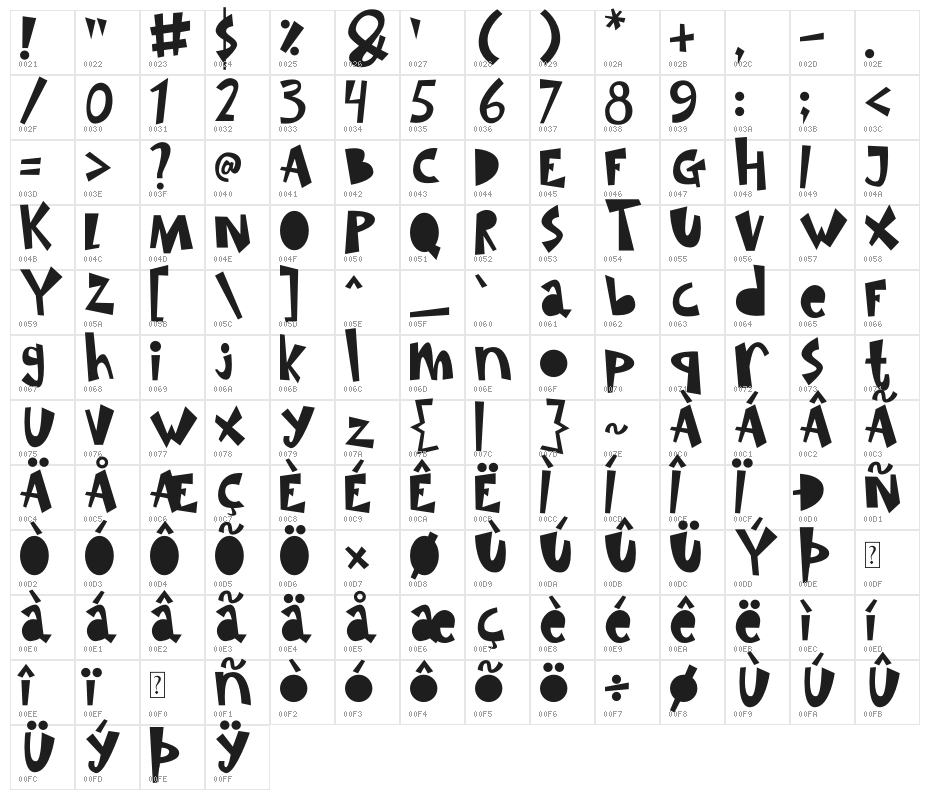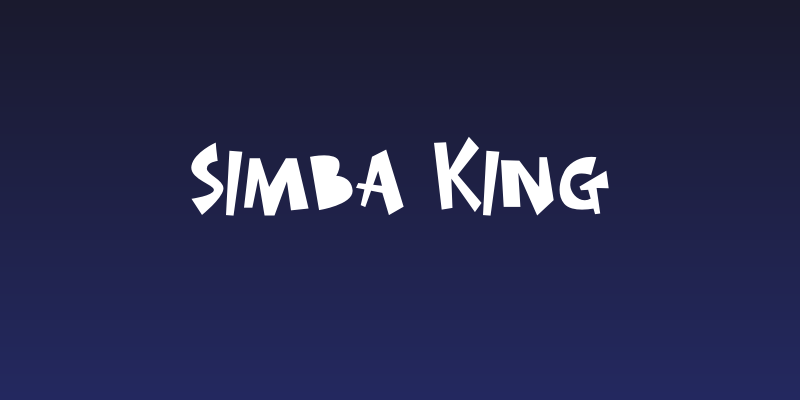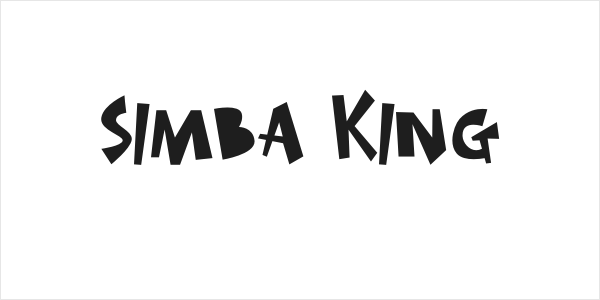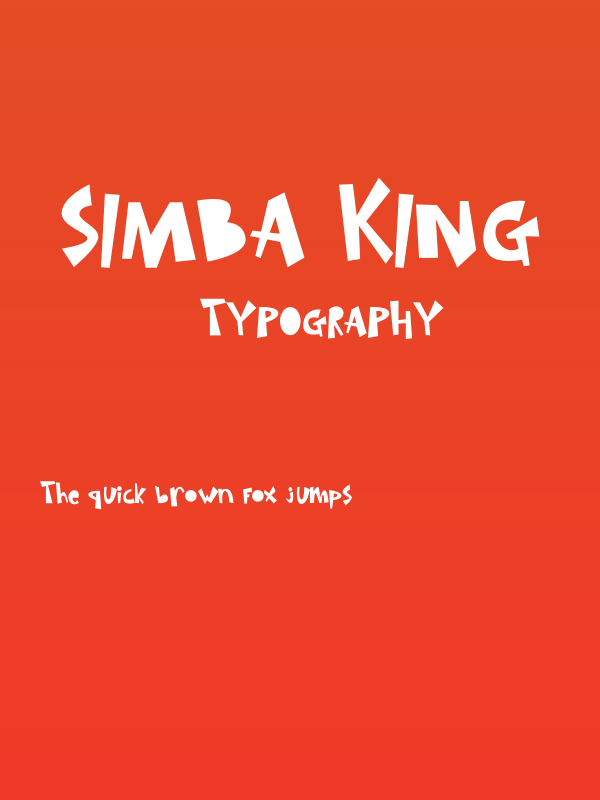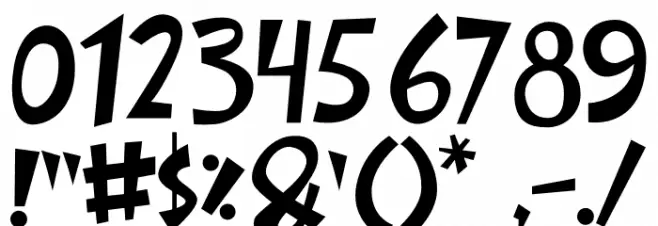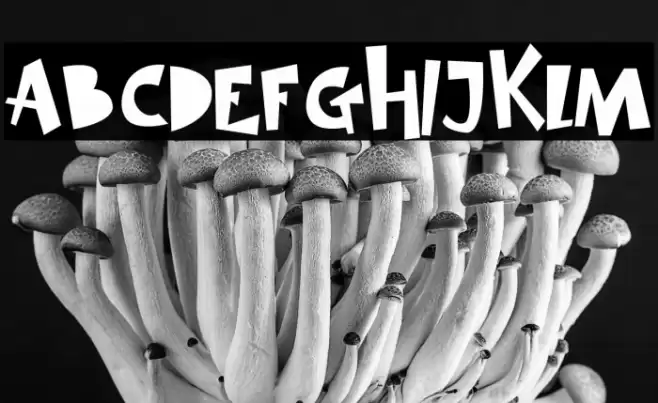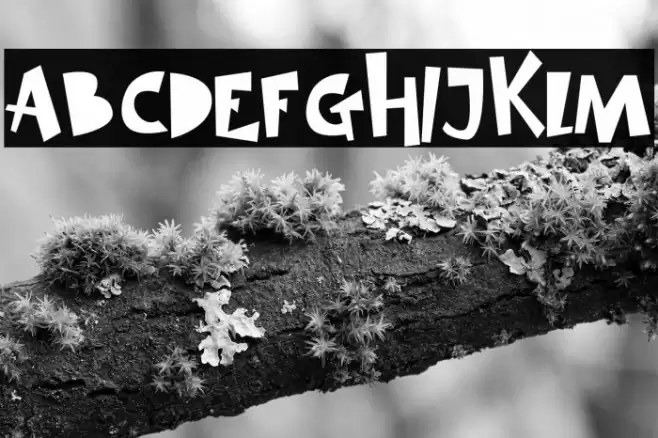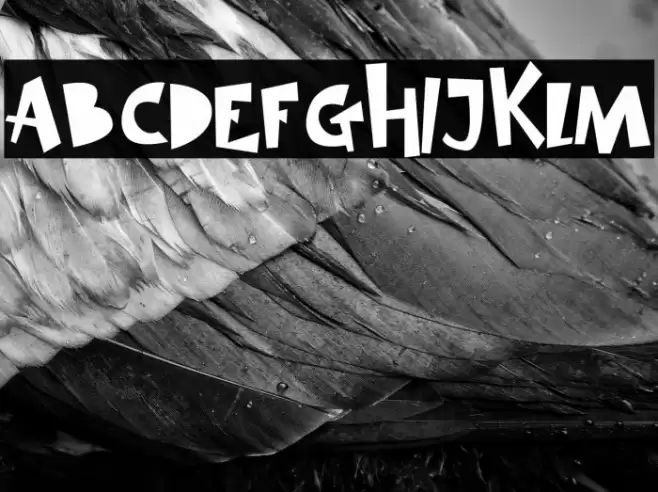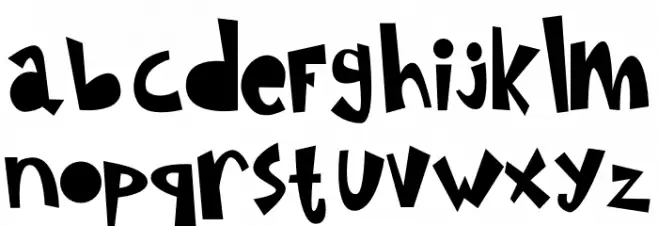
SIMBA KING Font
SIMBA KING Description
This playful and bold font features an eclectic mix of sharp angles and smooth curves, creating a dynamic and energetic appearance. The uppercase letters are particularly striking, with exaggerated forms that convey a sense of movement and excitement. The lowercase letters maintain a whimsical style, complementing the uppercase with their own unique flair. Numbers and special characters follow the same lively design, making this font versatile for various creative applications. The overall design is reminiscent of hand-drawn lettering, adding a personal and artistic touch.
| Overall Style | Playful, Artistic |
| Use Case | Headlines, Posters, Branding |
| Proposed Projects | Ideal for children's books, playful branding, posters, and creative invitations. |